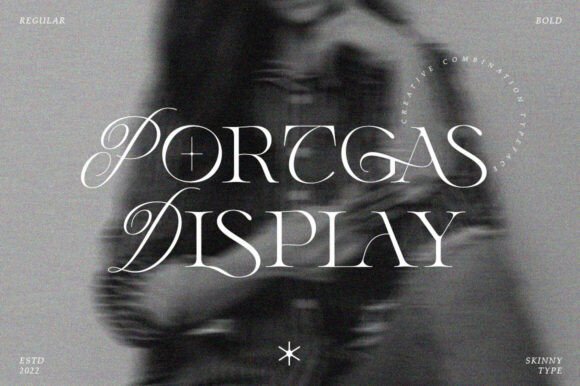
Introducing Portgas Display Font: A Timeless Blend of Classic Calligraphy and Modern Serif
In the world of typography, fonts play a crucial role in conveying messages, expressing emotions, and creating visual identities. Among the numerous fonts available, Portgas Display Font stands out for its unique blend of classic calligraphy and modern serif, making it an excellent choice for designers seeking elegance and sophistication. In this article, we’ll delve into the world of Portgas Display Font, exploring its inspiration, design, and applications.
The Inspiration Behind Portgas Display Font
Portgas Display Font draws its inspiration from the fashion industry, specifically from fashion magazines. The font’s creator aimed to capture the essence of high-end fashion, where elegance, sophistication, and modernity reign supreme. By observing the typography used in fashion publications, the designer noticed a recurring theme of thick-thin serif strokes, which conveyed a sense of luxury and refinement. This observation served as the foundation for Portgas Display Font, which embodies the perfect balance of classic calligraphy and modern serif.
Design Characteristics of Portgas Display Font
Portgas Display Font is characterized by its minimalist and simplistic approach to elegance. The font features:
- Thick-thin serif strokes: The font’s serif strokes exhibit a subtle variation in thickness, creating a sense of fluidity and dynamism.
- Classic calligraphy: Portgas Display Font is rooted in traditional calligraphy, evident in its elegant letterforms and refined lines.
- Modern serif: The font’s serif elements are carefully crafted to provide a modern twist, making it suitable for contemporary design applications.
- Minimalist approach: The font’s design is intentionally minimalist, allowing the user to focus on the message rather than the typography.
Applications of Portgas Display Font
Portgas Display Font is designed primarily for headlines, titles, and short texts, making it an excellent choice for various design applications, including:
- Advertising: The font’s elegant and sophisticated design makes it perfect for creating eye-catching advertisements.
- Vintage mood boards: Portgas Display Font’s classic calligraphy and modern serif elements blend seamlessly with vintage design aesthetics.
- Branding and logotypes: The font’s unique character makes it an excellent choice for creating memorable brand identities.
- Packaging design: Portgas Display Font adds a touch of elegance and sophistication to product packaging.
- Editorial design: The font is well-suited for editorial design, including magazine titles, section headers, and pull quotes.
- Modern and vintage design: Portgas Display Font’s versatility makes it suitable for both modern and vintage design applications.
- Unique character: Portgas Display Font offers a distinctive blend of classic calligraphy and modern serif, making it stand out from other fonts.
- Elegance and sophistication: The font exudes elegance and sophistication, making it perfect for high-end designs.
- Versatility: Portgas Display Font is suitable for various design applications, from advertising to editorial design.
- Easy to read: Despite its elegant design, Portgas Display Font remains highly legible, even at smaller sizes.
Portgas Display Font is a beautiful and inspiring typeface that combines the best of classic calligraphy and modern serif. Its unique character, elegance, and sophistication make it an excellent choice for designers seeking to create visually stunning designs. With its versatility and legibility, Portgas Display Font is sure to become a go-to font for various design applications. Whether you’re working on advertising, branding, or editorial design, Portgas Display Font is an excellent addition to your typography arsenal.